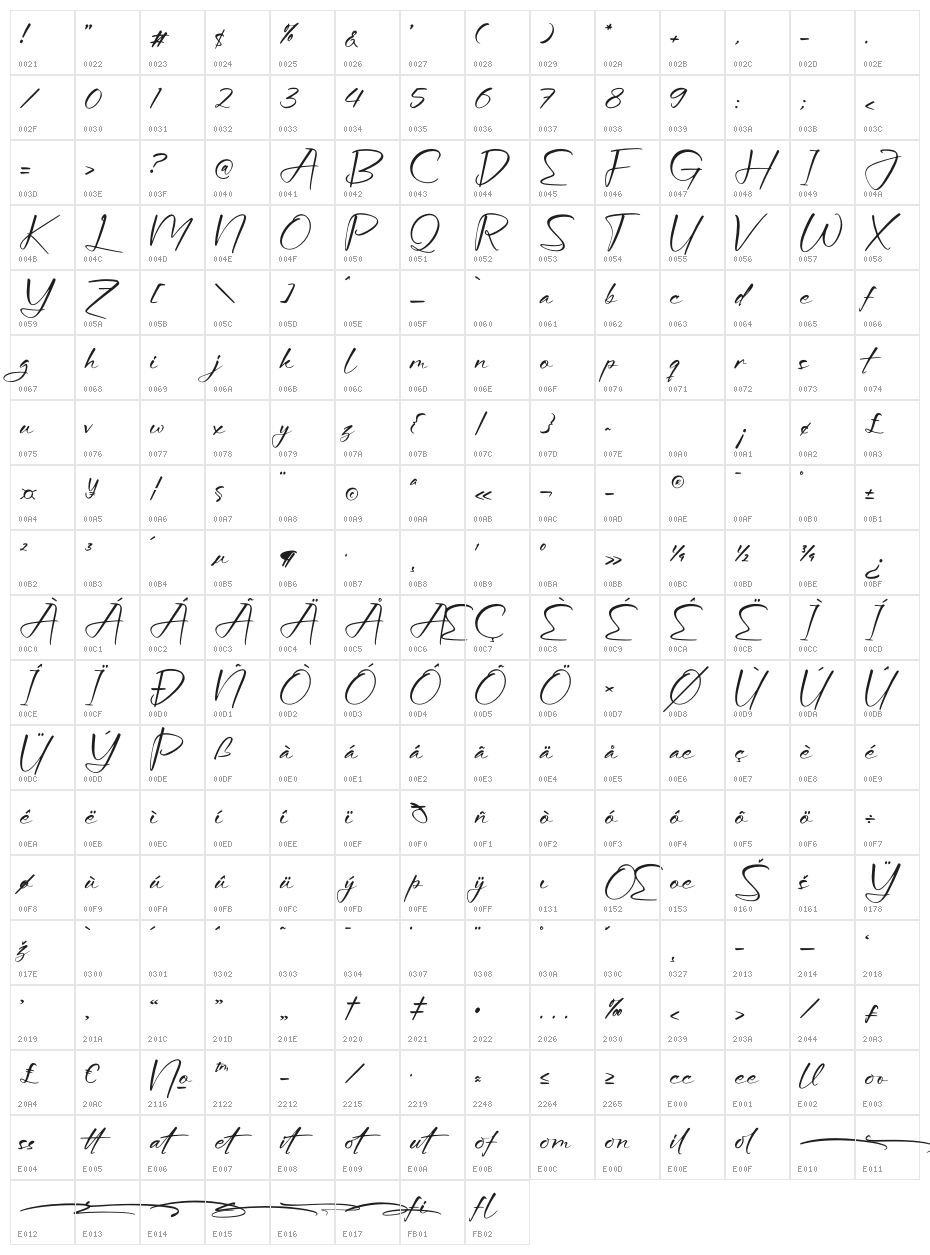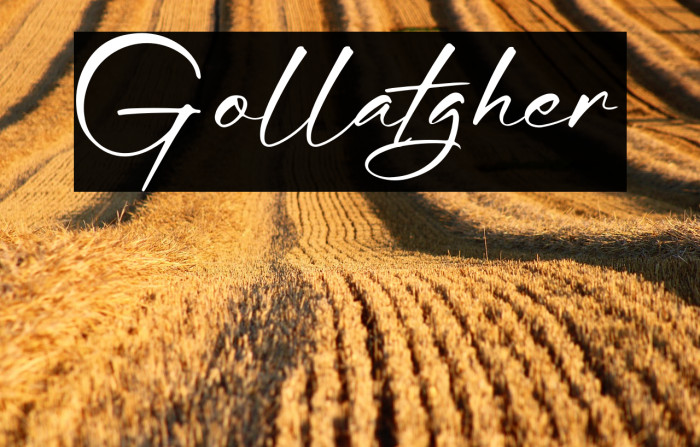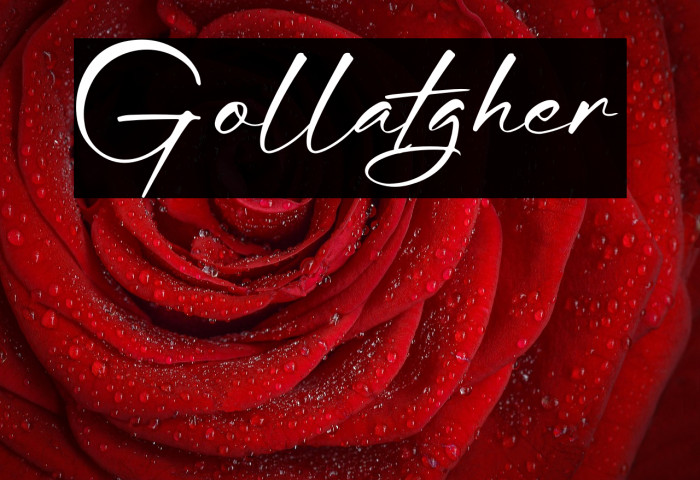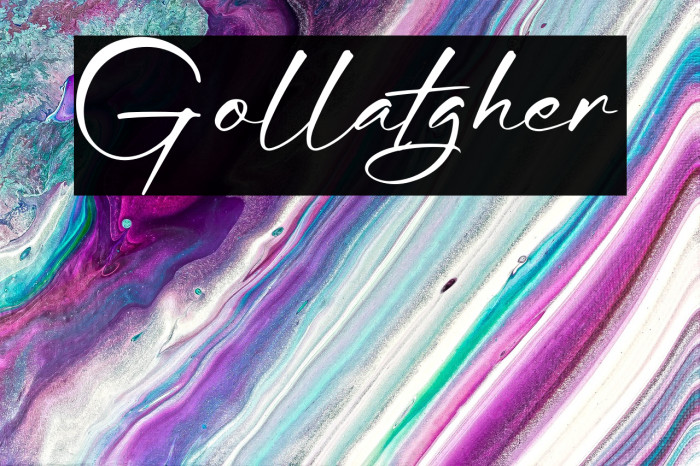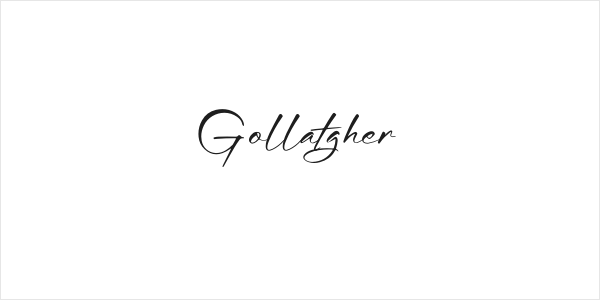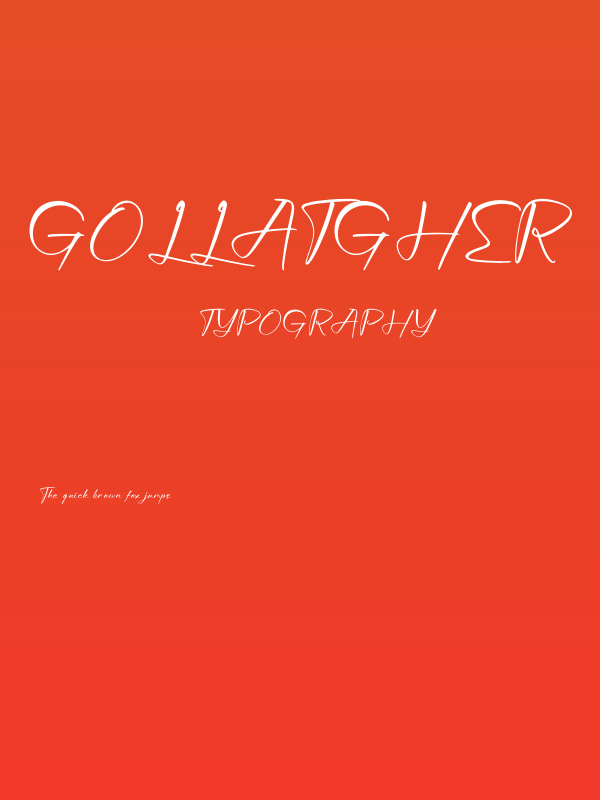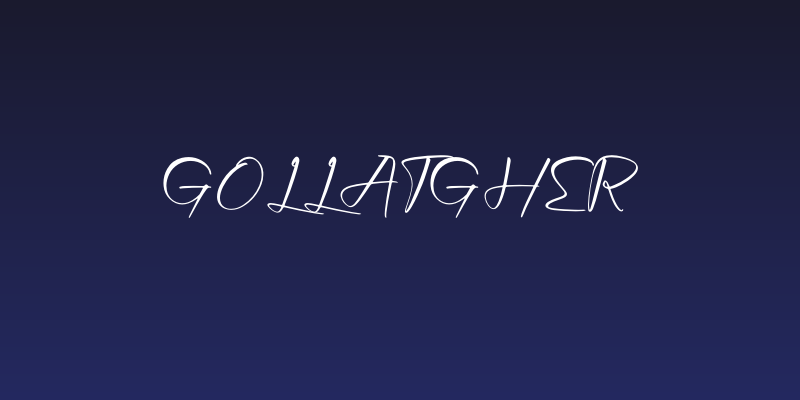
Gollatgher Font
Gollatgher Description
This font exhibits a flowing, cursive style with elegant, sweeping strokes that give it a sophisticated and artistic appearance. The uppercase letters are characterized by their tall, slender forms with distinctive loops and curves, while the lowercase letters maintain a consistent fluidity and grace. The numerals and special characters are equally stylized, maintaining the overall aesthetic of the font. The design is reminiscent of classic calligraphy, making it suitable for projects that require a touch of elegance and refinement.
| Proposed Projects | Ideal for wedding invitations, elegant branding, personal stationery, and artistic projects. |